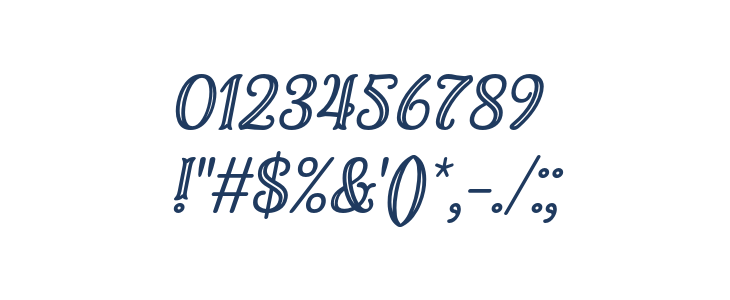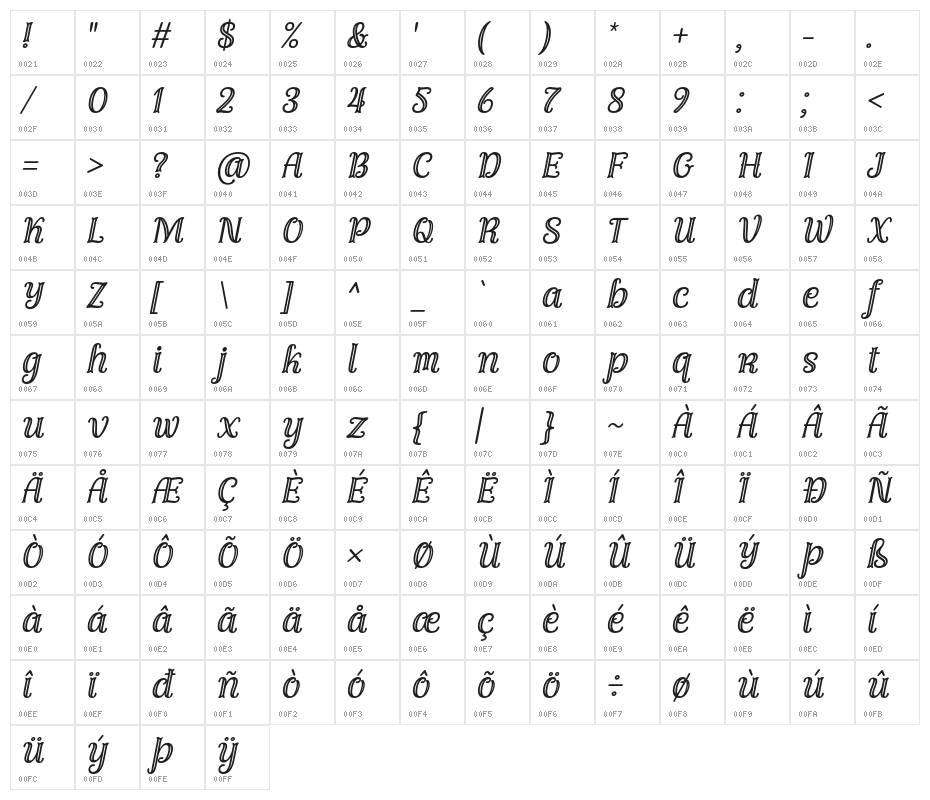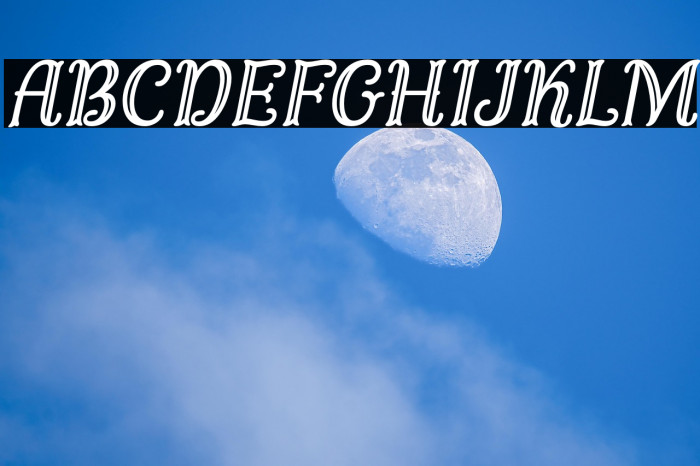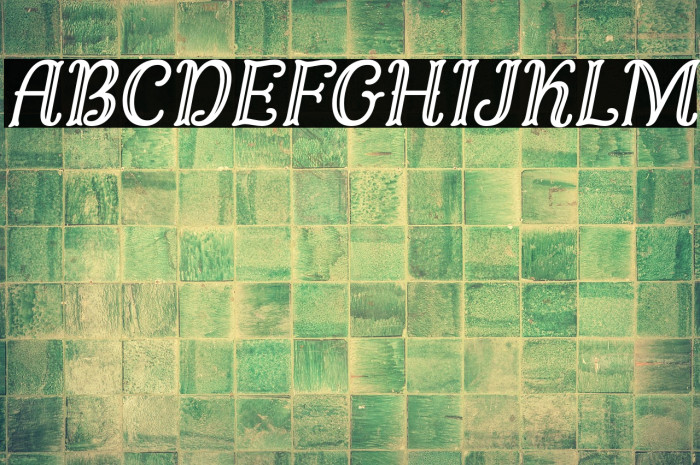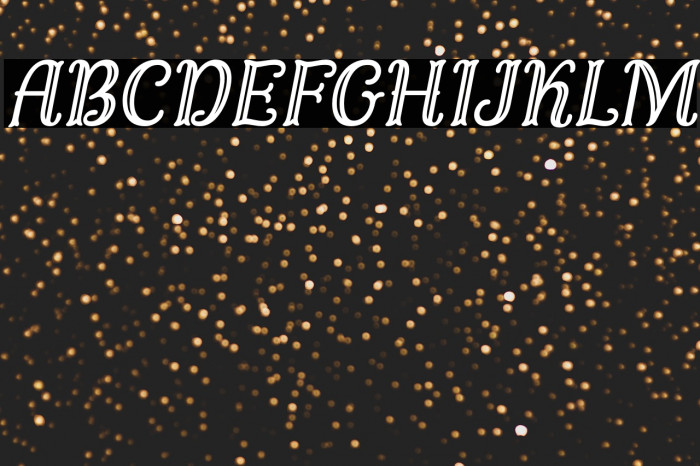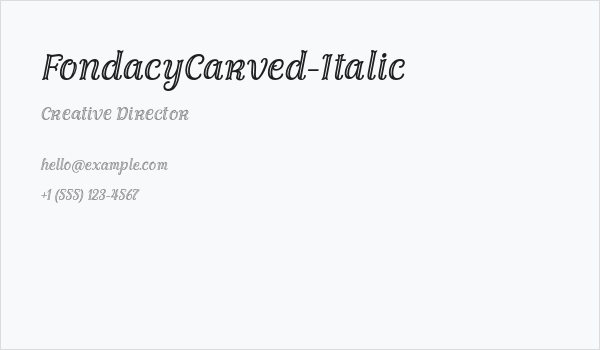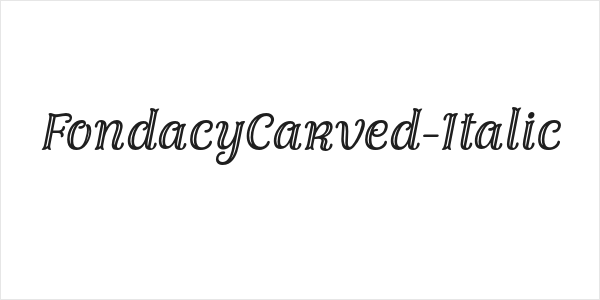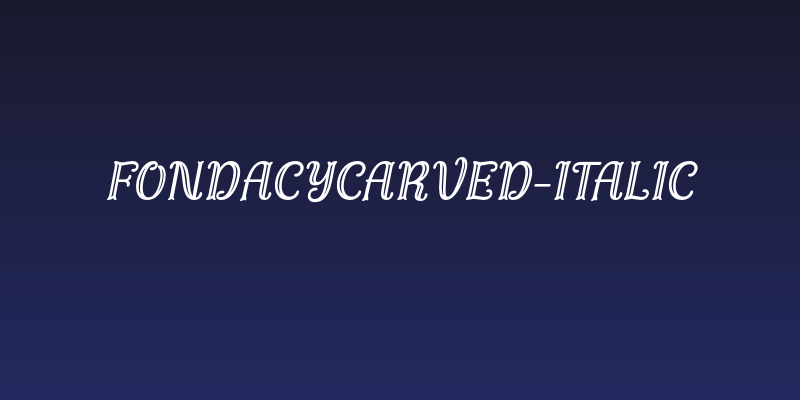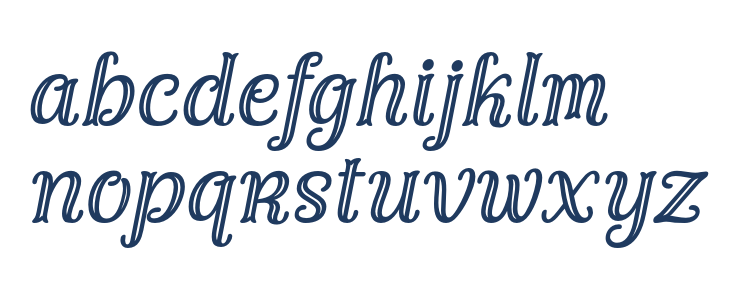
FondacyCarved-Italic Font
FondacyCarved-Italic Description
This font features an elegant and flowing script style with a distinct italic slant, giving it a dynamic and sophisticated appearance. The characters are well-defined with moderate stroke contrast, providing a sense of movement and fluidity. The uppercase letters are bold and prominent, while the lowercase letters maintain a consistent style with slightly more delicate strokes. The numerals are clear and easy to read, matching the overall aesthetic of the font. Special characters are included, maintaining the same stylistic elements, making this font versatile for various design needs.
| Use Case | Headlines, Invitations, Branding |
| Proposed Projects | Ideal for wedding invitations, elegant branding, greeting cards, and decorative headlines. |